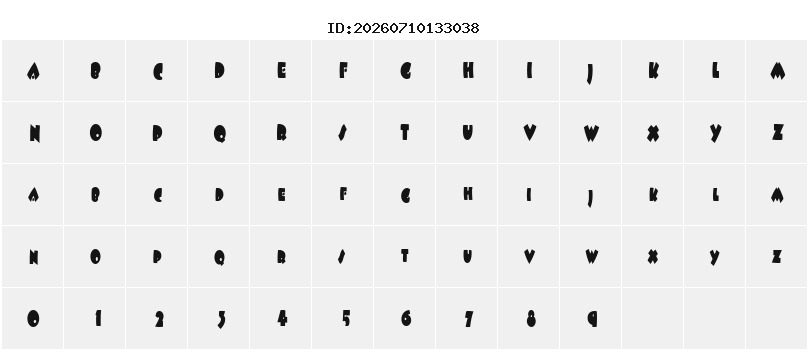
FatsoCondensed Preview
• Font Name: FatsoCondensed
• Full Font Name: FatsoCondensed
About FatsoCondensed.ttf
FatsoCondensed.ttf is a modern, elegant sans-serif font designed for ultimate readability and visual harmony. Perfect for branding, headlines, web design, and print materials.